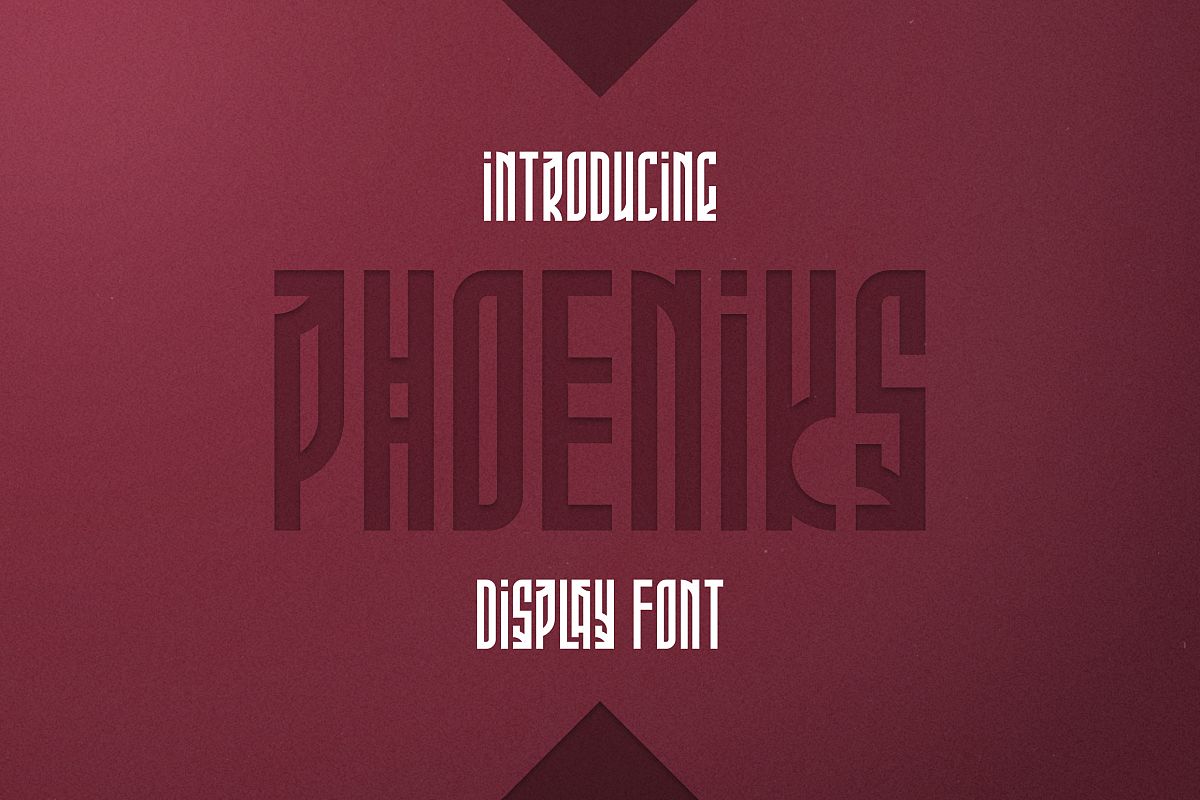
Phoeniks - Display font
Phoeniks
Introducing Phoeniks - display font
Phoeniks is clean, urban font with ligature, alternate glyphs and multilingual support.
It's a very versatile font that works great in large and small sizes.Phoeniks is perfect for branding projects, home-ware designs, product packaging, magazine headers - or simply as a stylish text overlay to any background image.